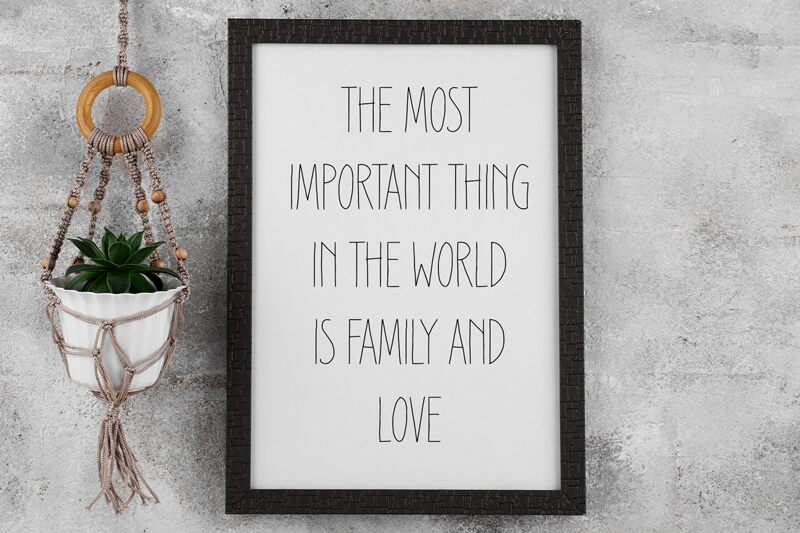
Snowblack font designed by Abo Daniel Studio is a handwritten font. The elegant font is a part of some contemporary projects realized with the future’s style in mind without overlooking classic ideas. The font combines the unique touch of traditional typography with futuristic innovations resulting in modern minimalistic, clean, and sophisticated letters.
Snowblack’s stylistic letters are suitable for branding projects within various industries. It can be part of the visual identity of retail businesses, restaurants, or event companies. It also covers headlines and typography on posters, packaging writings, website use, app design, magazines, infographics, advertising materials, social media posts, and much more.
SNOWBLACK